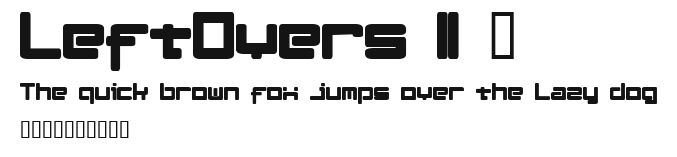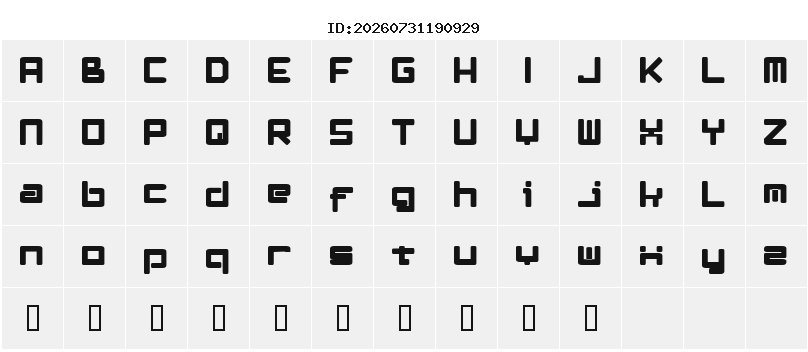
• Font Name: LeftOvers II 3
• Font Style: 1
• Full Font Name: LeftOvers II 3 1
About LeftOvers II 3.ttf
LeftOvers II 3.ttf is a modern, elegant sans-serif font designed for ultimate readability and visual harmony. Perfect for branding, headlines, web design, and print materials.